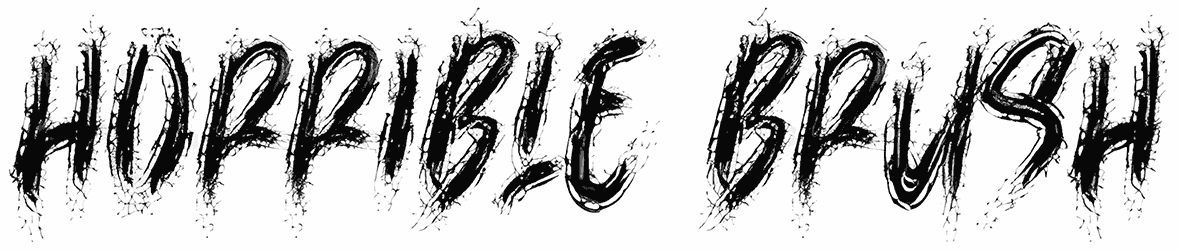
Horrible Brush Font
If you are looking for a unique brush font that carries a vibe of jauntiness, tenderness, fear, or dread, then Horrible Brush really deserves to be on your radar.
The fascinating point about this all-caps horror font is that it can be perfectly matched with a wide set of graphic content, like posters, digital banners, flyers, social media posts, or video game brochures. Don’t forget to check out the RB collection for daily updates.